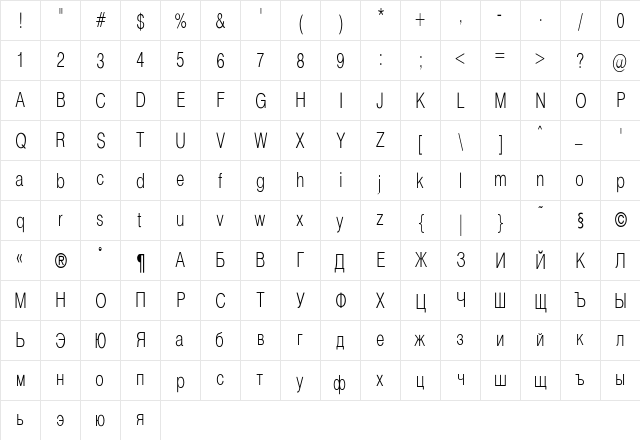
Helvetica_Condenced-Normal Regular
Helvetica_Condenced-Normal takes a measured approach to typography — its balanced proportions and neutral character make it a reliable workhorse for both digital and print work. The condensed width makes it efficient for tight spaces without sacrificing legibility.